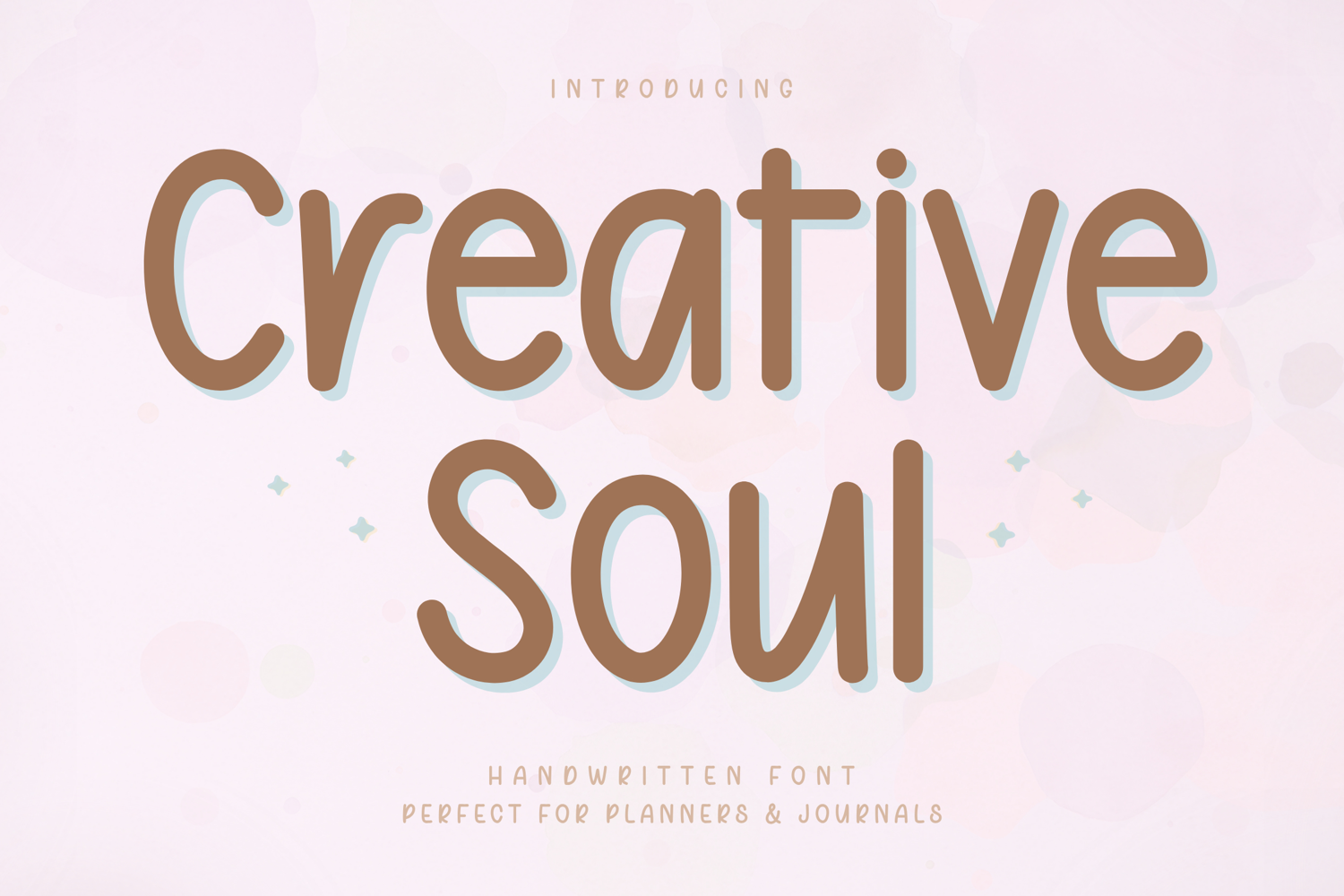
Creative Soul - Handwritten Font
Creative Soul – Handwritten Font
Creative Soul is a soft and minimal handwritten font designed to bring a calm and aesthetic feel to your creative projects. With its smooth curves and clean letterforms, this font creates a natural handwritten style while maintaining excellent clarity and readability.
Carefully crafted for everyday usability, Creative Soul performs beautifully across a variety of applications—from digital planners and journals to Cricut projects, stickers, and social media design. Its neat and consistent strokes make it especially suitable for note-taking, planning, and long-form writing.
Creative Soul is designed with smooth, clean strokes and balanced spacing, making it easy to read and comfortable for extended use.